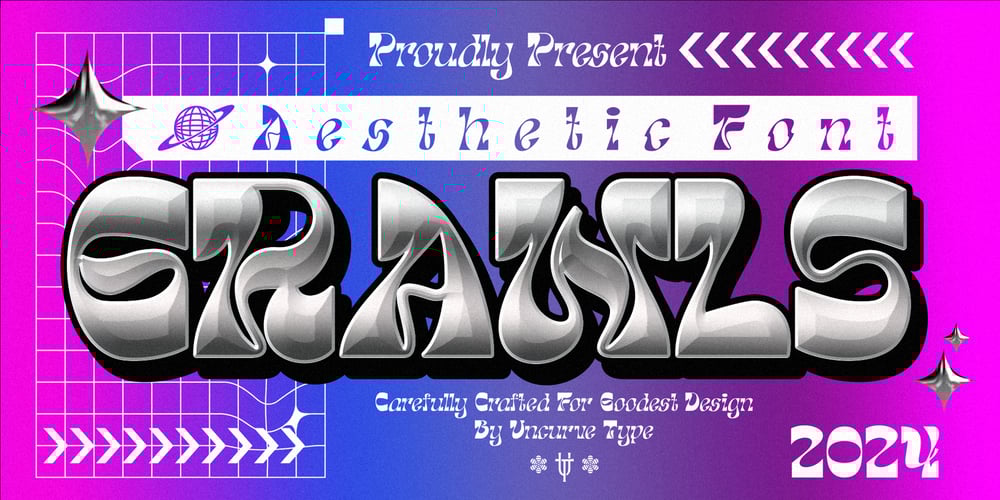
Grawls
Grawls font
Grawls Font Family was designed by Ferry Septian and published by Uncurve. Grawls contains 1 styles and family package options. Introducing Grawls, a modern, futuristic, and experimental font designed to elevate your creative projects across various domains. With its sleek and edgy aesthetic, Grawls is the perfect typographic choice for those seeking a cutting-edge appeal in their designs.Whether you’re immersed in streetwear, y2k, or sport-inspired creations, Grawls effortlessly complements and enhances your vision. Its dynamic and versatile nature makes it suitable for diverse applications, ranging from clothing labels, movie screens, and posters to studio branding and modern design ventures.Grawls adds a touch of contemporary sophistication to your projects, making it an ideal choice for movie titles, sneaker branding, event invitations, and social media posts. Its adaptability extends to cafe and restaurant signage, album covers, logos, and practically any design where a futuristic, yet stylish, font is desired.